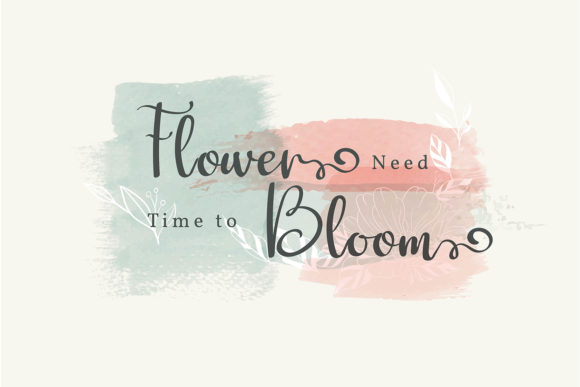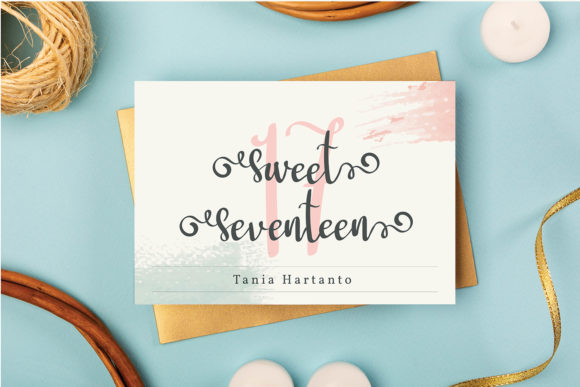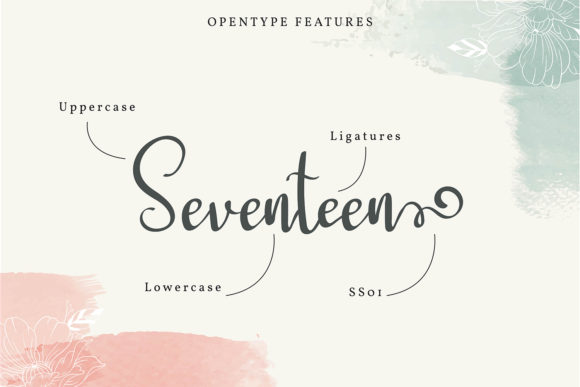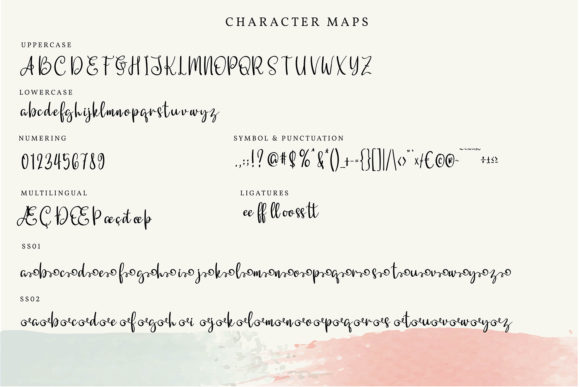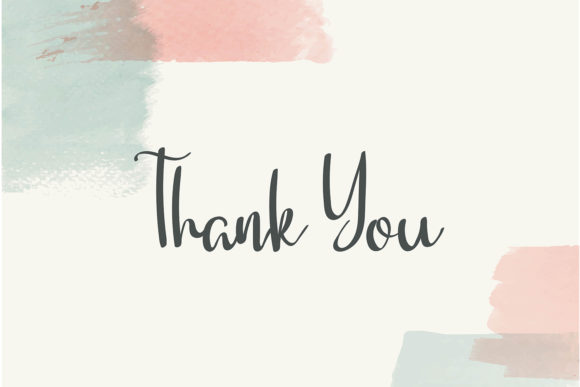
Ardellya Font
About Ardellya Font
Ardellya is a stunning and sophisticated script font that exudes elegance and grace. With its delicate and classy appearance, Ardellya adds a touch of refinement to any design project. The font strikes the perfect balance between not being too thin or too thick, resulting in a harmonious and versatile typeface that enhances the beauty of your projects.
Ardellya’s graceful and flowing letterforms are meticulously crafted to create a sense of timeless beauty. The strokes are carefully balanced and varied, capturing the essence of handcrafted calligraphy. The font’s smooth and consistent curves give it a polished and refined look, making it an excellent choice for designs that require a touch of sophistication.
The versatility of Ardellya allows it to shine in a wide range of design applications. Whether you’re designing wedding invitations, elegant logos, branding materials, or even editorial layouts, Ardellya adds a touch of class and beauty to every project. Its delicate appearance makes it particularly well-suited for feminine and romantic designs, such as luxury brandings, upscale events, or high-end fashion projects.
One of the standout features of Ardellya is its extensive set of beautiful glyphs and swashes. With PUA encoding, accessing these additional characters and decorative elements is effortless, providing you with the flexibility to customize and embellish your designs. The glyphs and swashes allow for artistic flourishes, decorative ornaments, and unique letter variations, giving your projects a personalized and distinctive touch.
When using Ardellya, your designs will exude a sense of sophistication and elegance. The font’s delicate and classy look elevates the visual appeal of your projects, creating a lasting impression on your audience. Its balanced and varied letterforms add a touch of charm and refinement, making it the perfect choice for high-end designs, stationery, invitations, packaging, and more.
Embrace the beauty and versatility of Ardellya, and let its delicate and classy look enhance your creative projects. With its balanced and varied letterforms, elegant swashes, and PUA encoding, Ardellya offers endless possibilities for adding a touch of timeless beauty to your designs. Whether you’re aiming for a luxurious wedding invitation or a sophisticated brand identity, Ardellya will help you achieve a stunning and polished result.
Elevate your projects with the exquisite elegance of Ardellya, and enjoy the effortless beauty and versatility it brings to your designs.